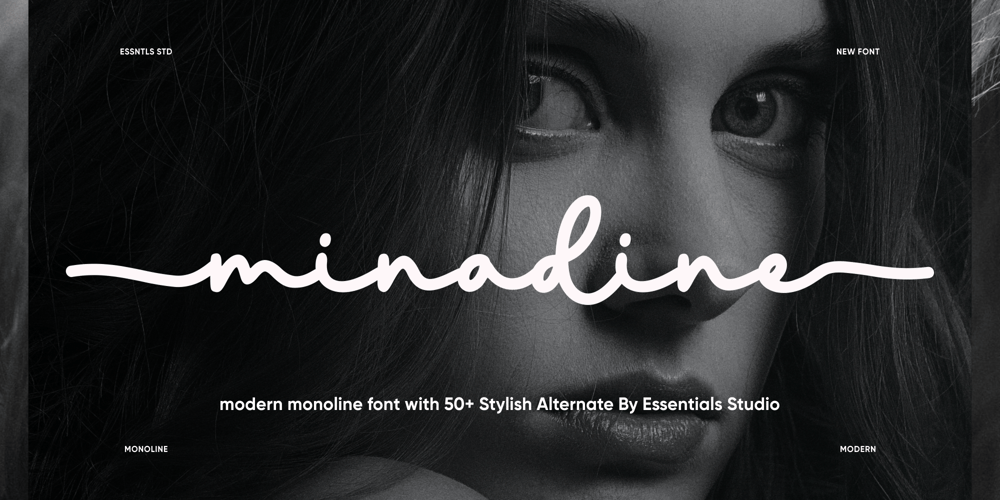
Minadine Font Family was designed by Annas Rifky Anhar and published by Essentials Studio. Minadine contains 1 styles and family package options. Introducing by Essentials StudioProudly Present, minadine Is a Modern monoline Font Include 50+ stylish Alternateminadine is perfect for product packaging, branding project, megazine, social media, wedding, or just used to express words above the background.